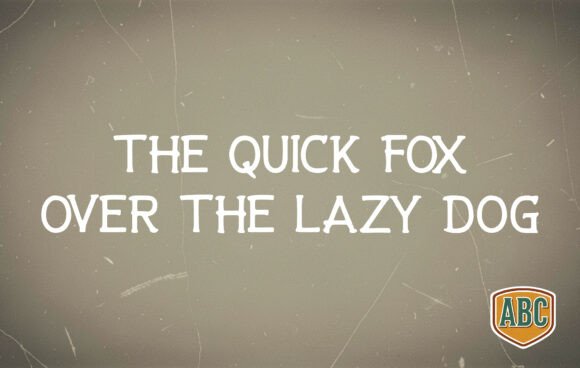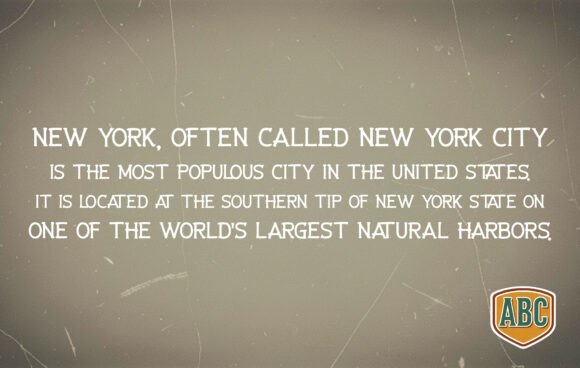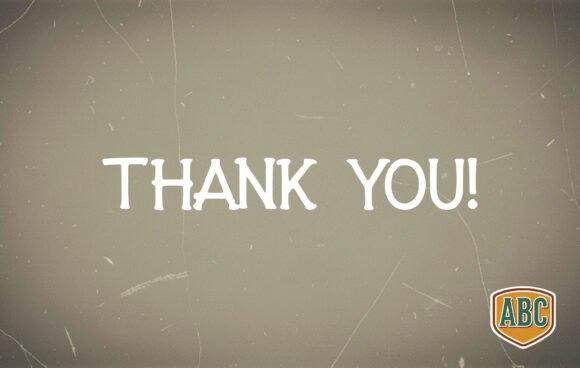
Introduction to Medium Slate Font
Medium Slate is a refined display font that balances architectural stability with a handcrafted touch.
Featuring subtle, flared serifs and a steady horizontal rhythm, this typeface feels both established and approachable It is the ideal choice for brands that want to convey reliable quality with a warm, β€œhuman” finish.